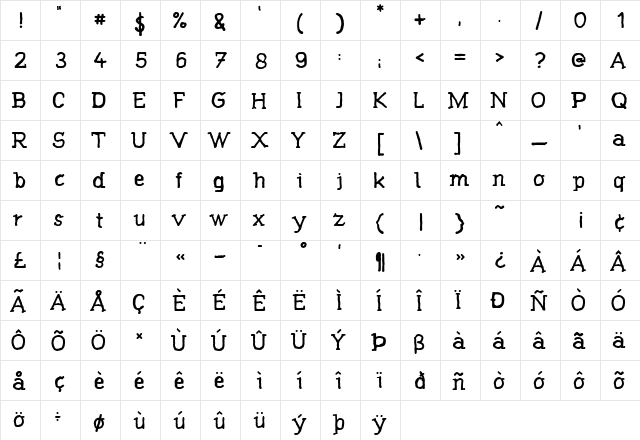
Claus Regular Font Preview
Claus Regular
Claus Regular Font Details
Design Context for Claus Typeface
Claus offers clean, dependable letterforms without strong stylistic allegiance, making it a practical choice for designers who need flexibility.